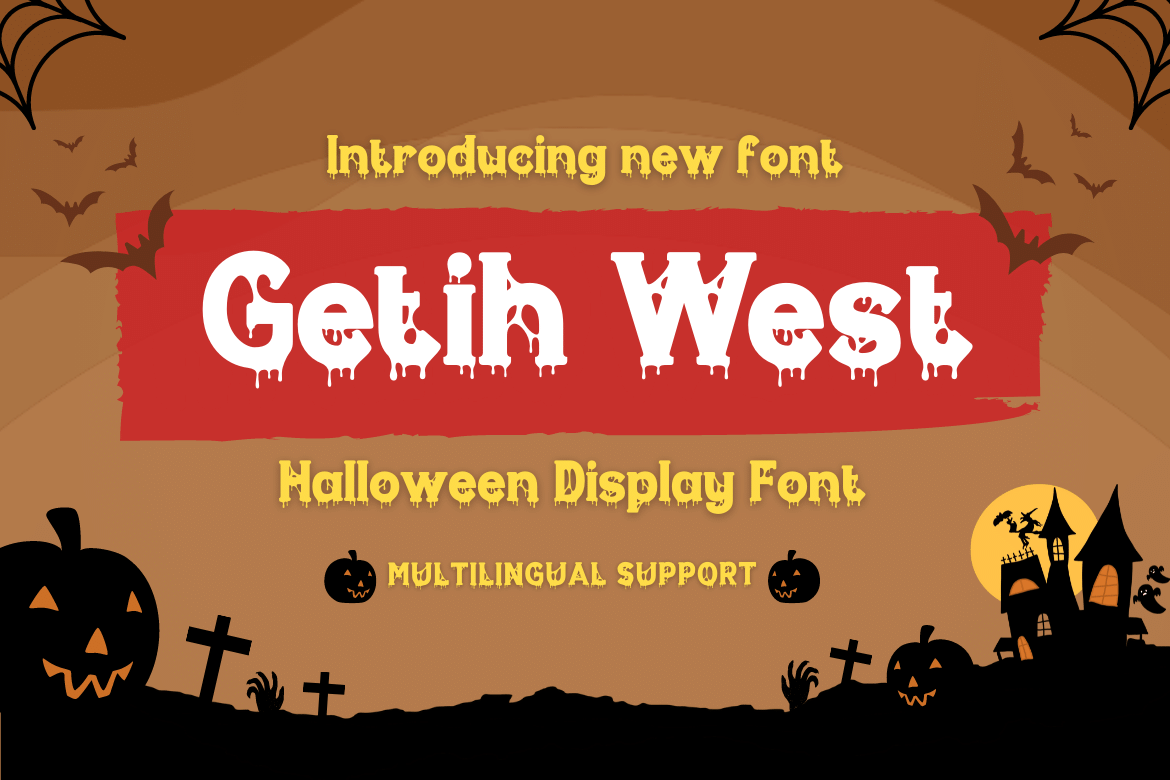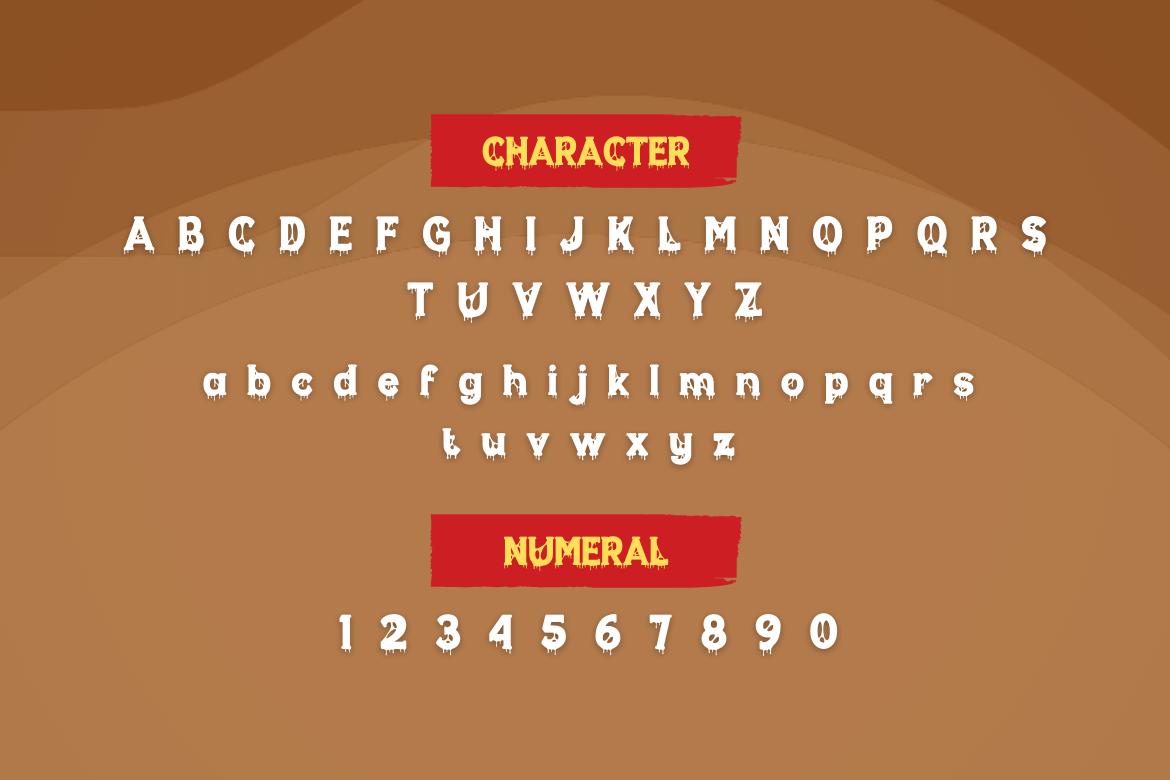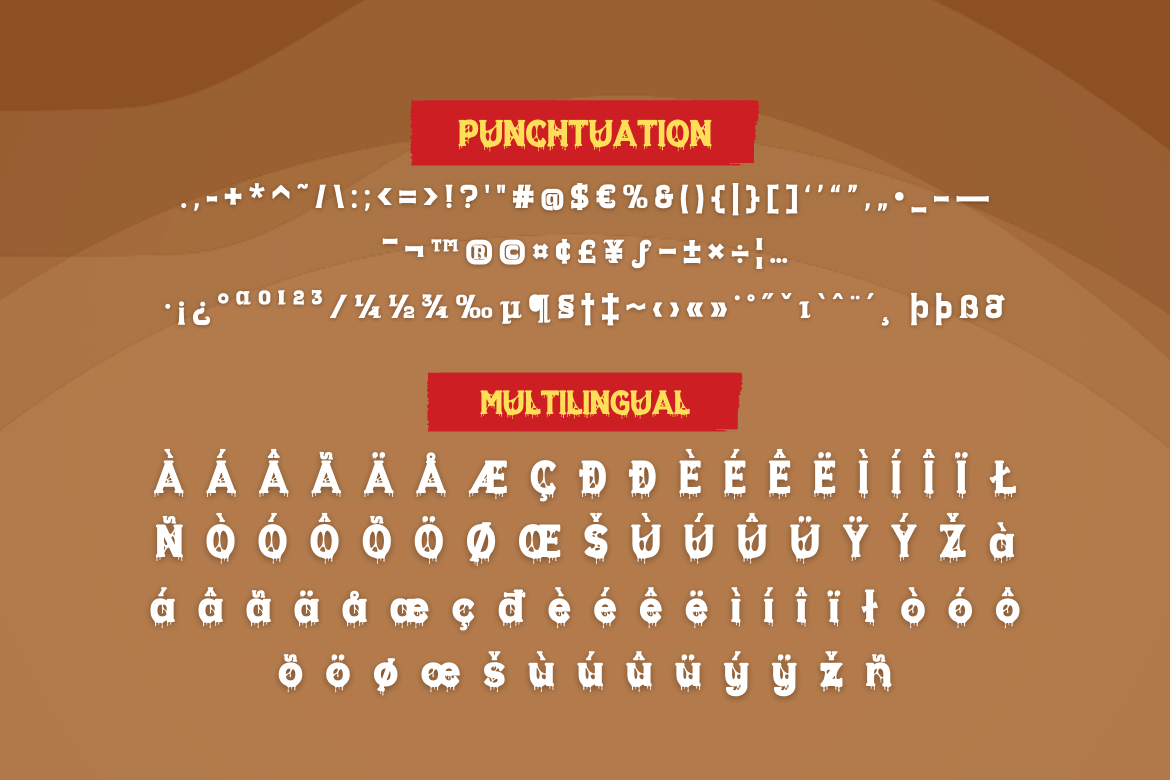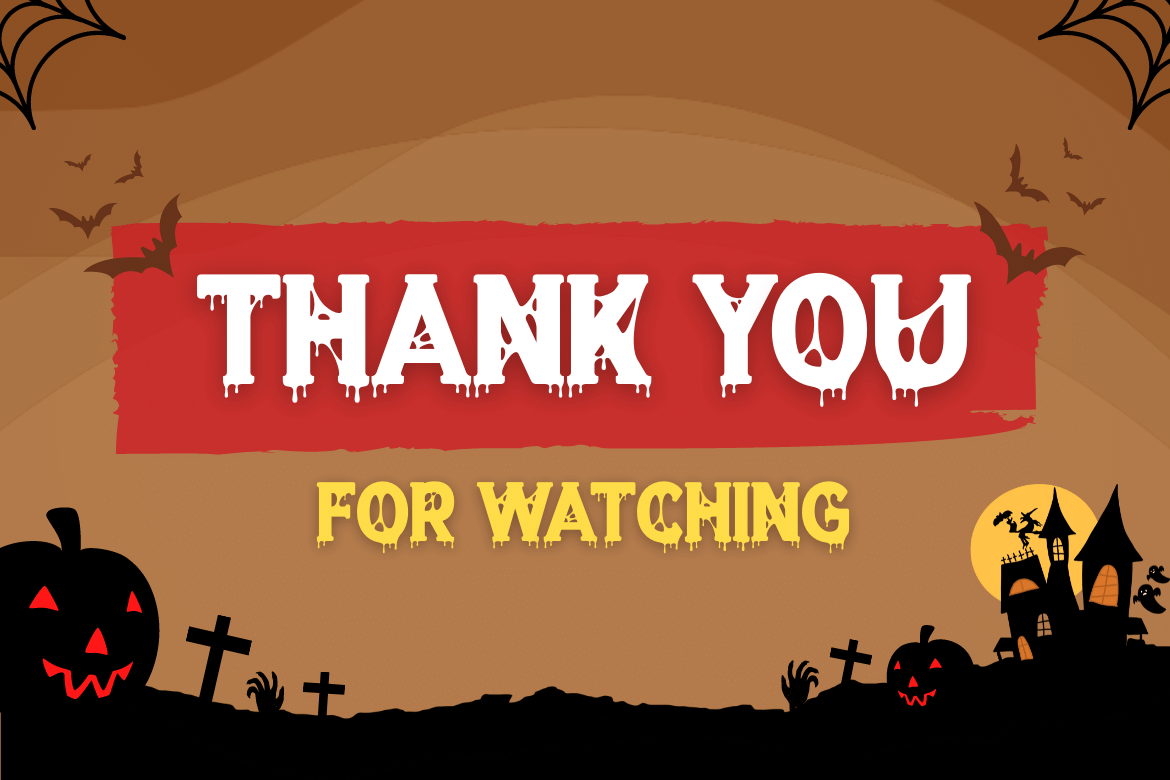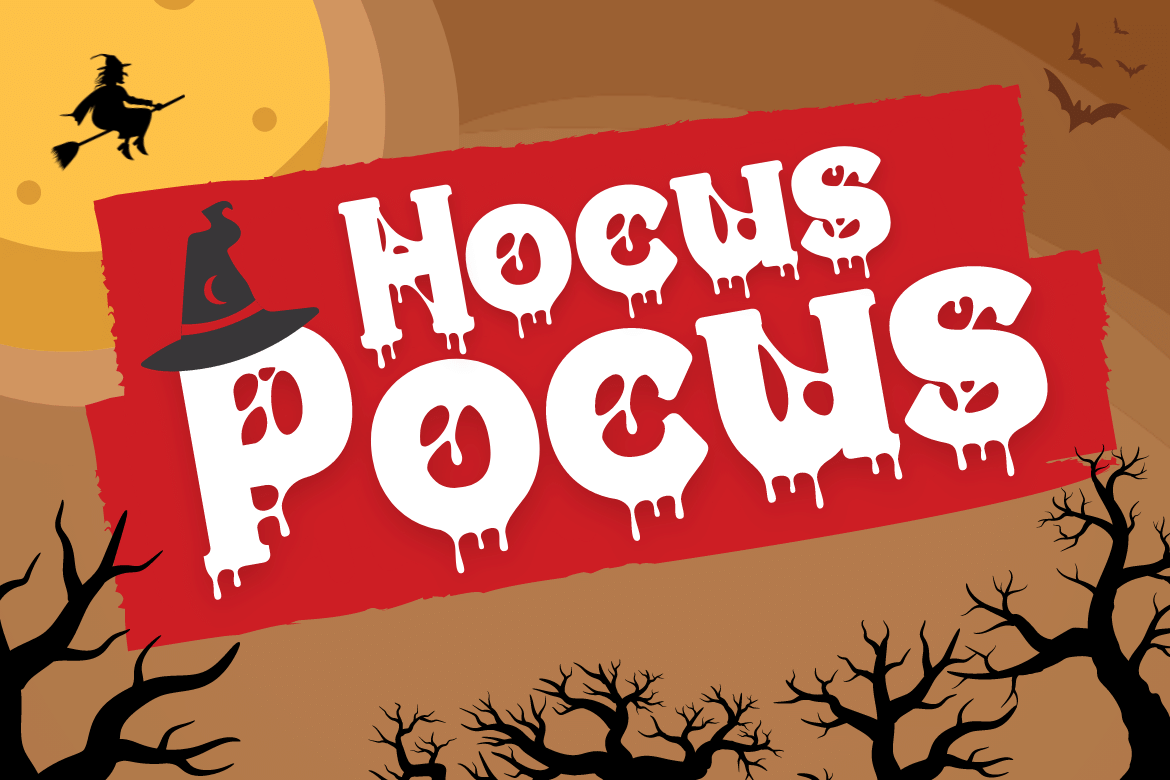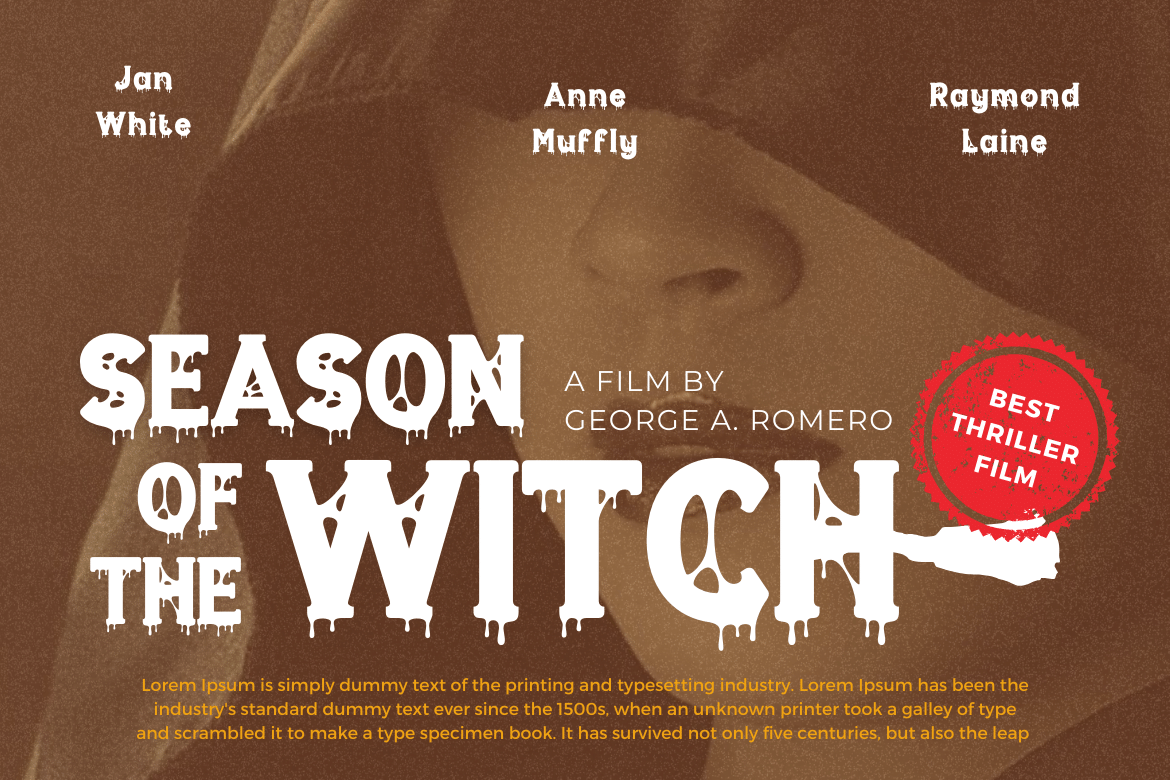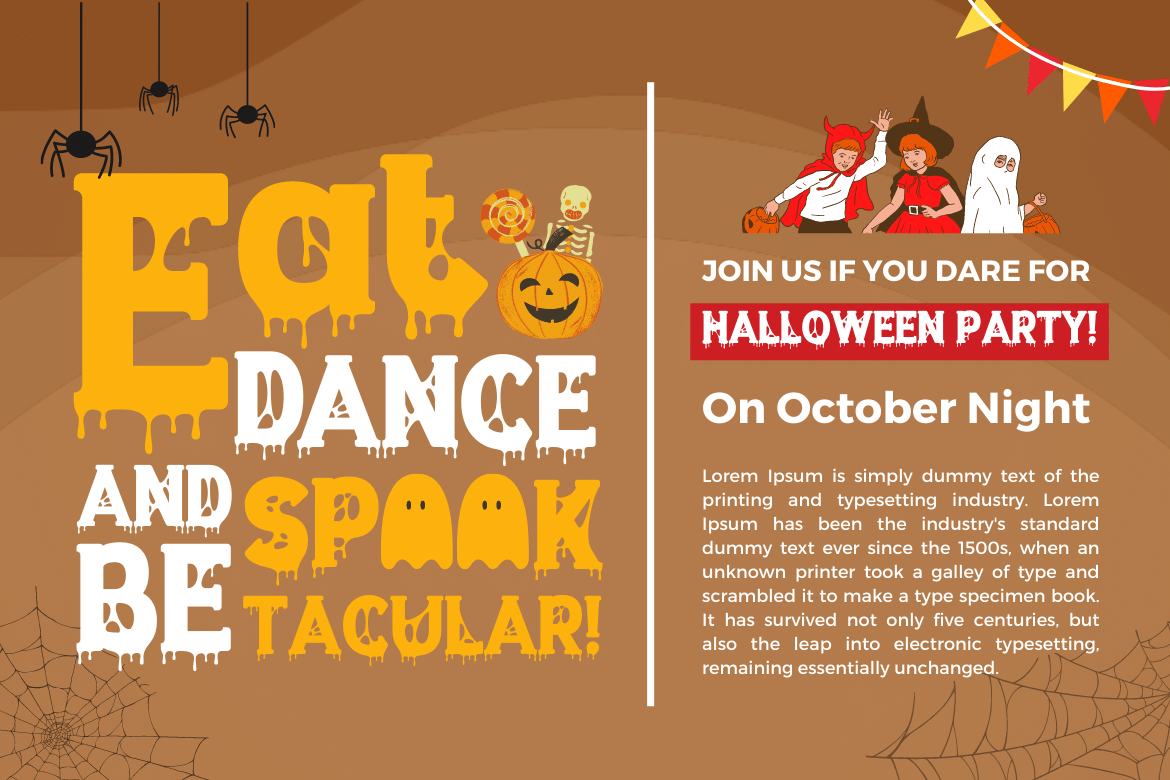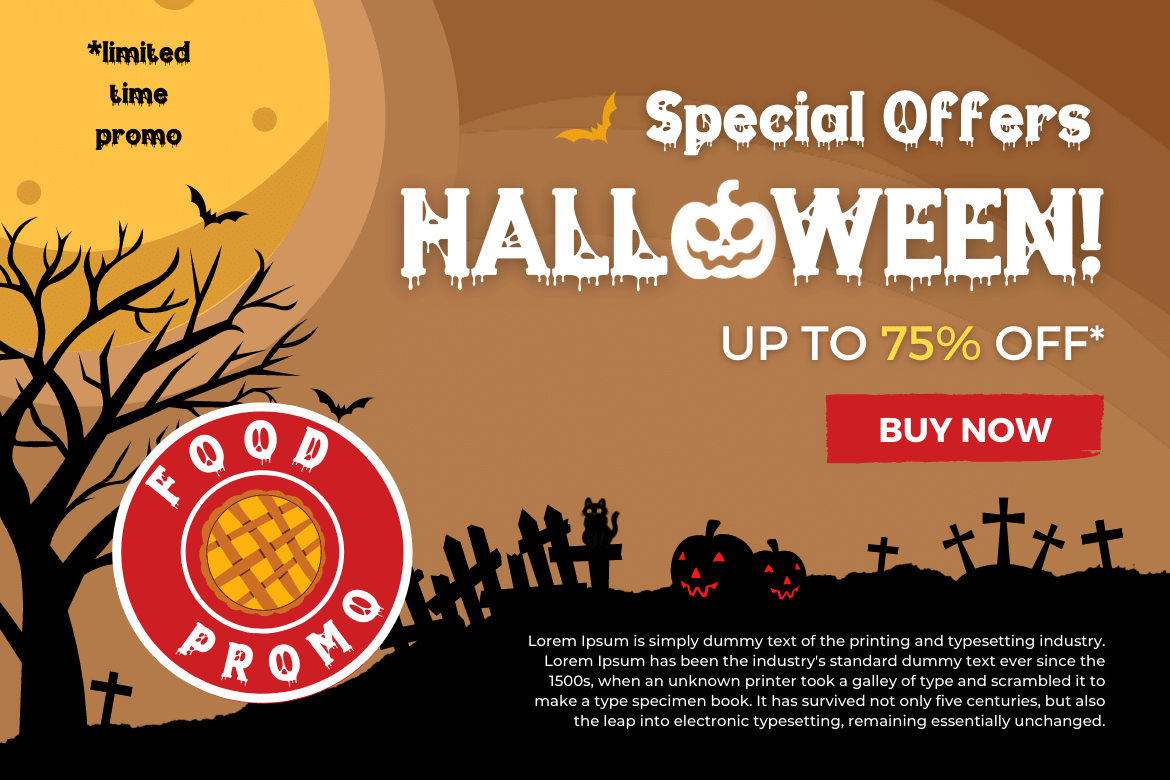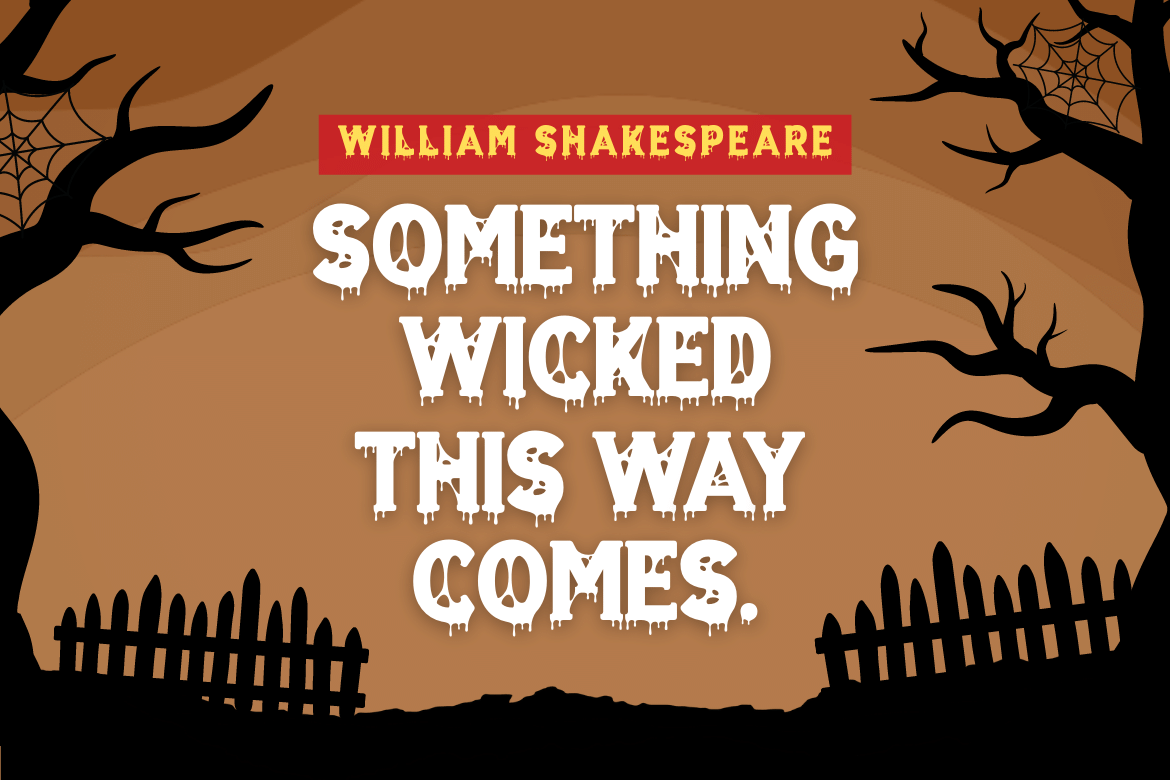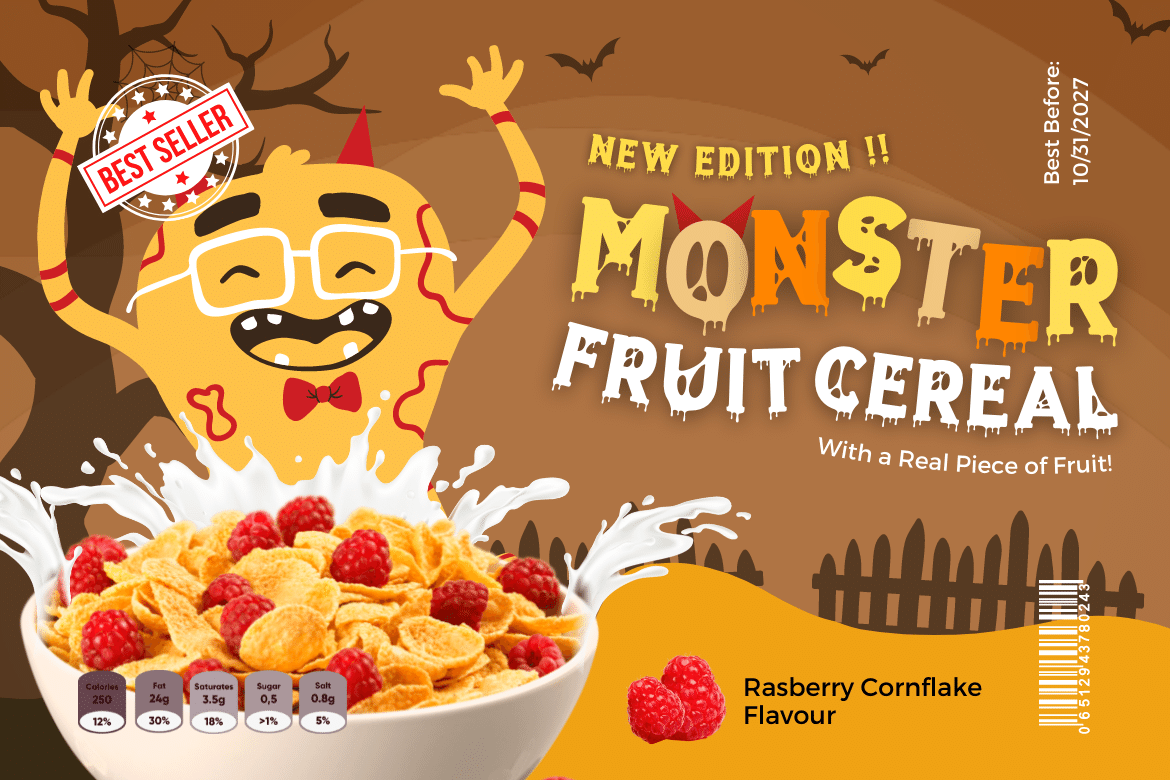
Getih West
Getih West It’s a Halloween font, but there’s no need to fear. It’s not just for Halloween fans; You can use it to create cool designs and logos for everything from snowboarding gear to new products at work. Or, if you’re in a hurry, use it to make a fun invitation for your next party — because everyone loves an invitation that screams “Boo!”
Of course with this font your various design projects will be perfect and amazing, get a beautiful title and start using our font for your special project.